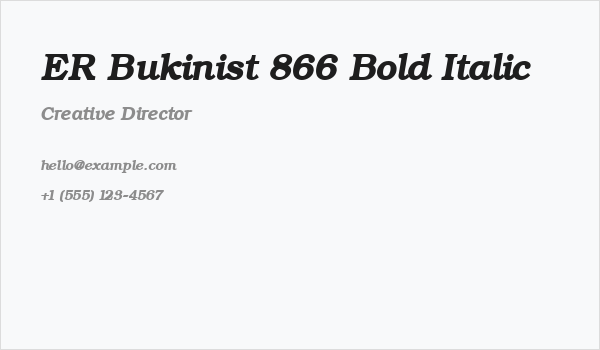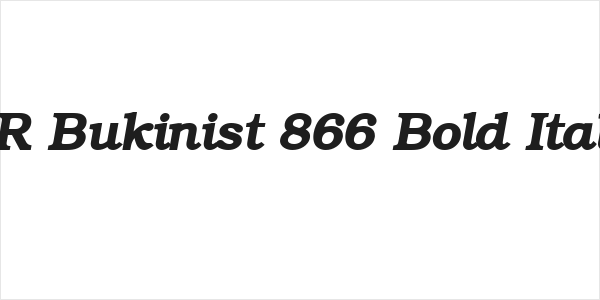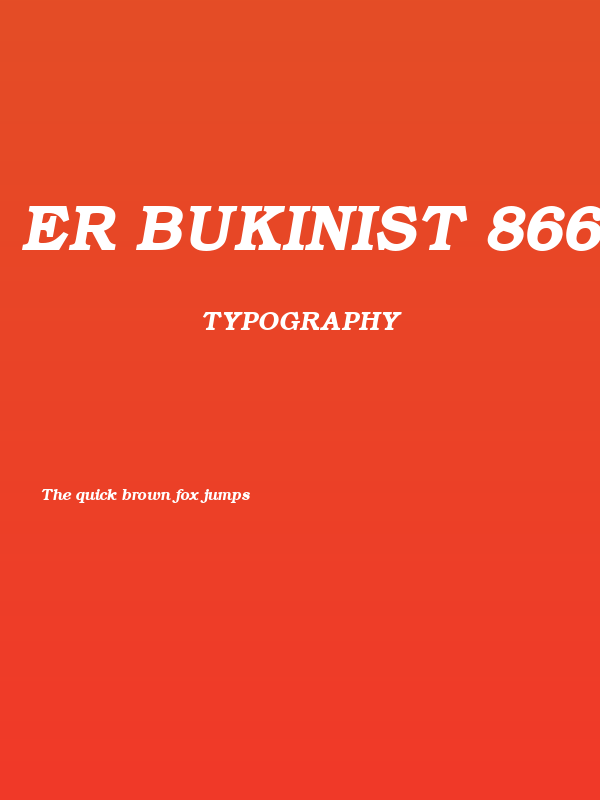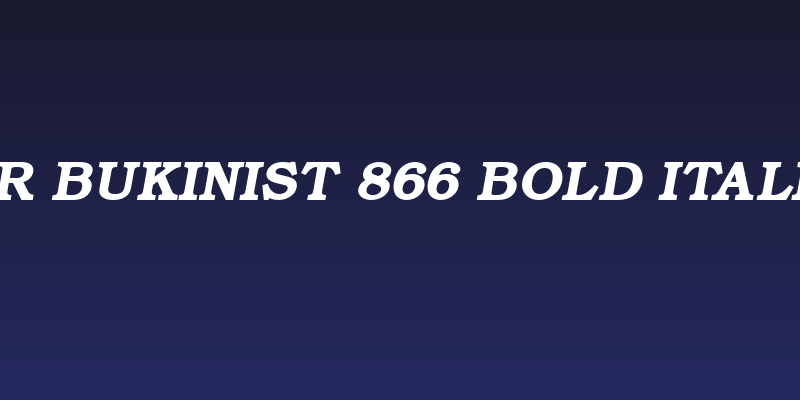
ER Bukinist 866 Bold Italic Font
ER Bukinist 866 Bold Italic Description
This typeface features a bold and italic style, characterized by its strong and dynamic appearance. The letters have a pronounced slant, giving them a sense of motion and elegance. The strokes are thick and consistent, providing a robust and confident look. The serifs are prominent, adding a touch of classic sophistication. The overall design is well-suited for making a statement, with its high contrast between thick and thin strokes enhancing readability and visual impact.
| Proposed Projects | Ideal for book covers, headlines, posters, and branding materials that require a classic yet dynamic feel. |